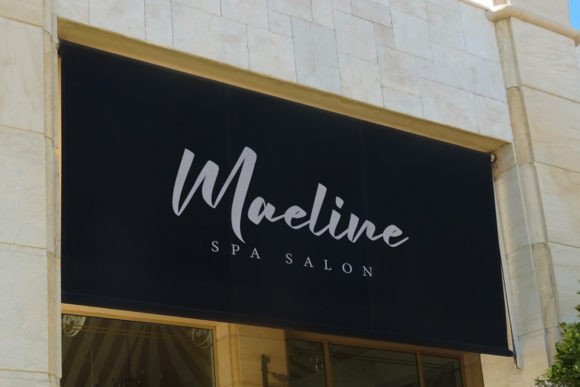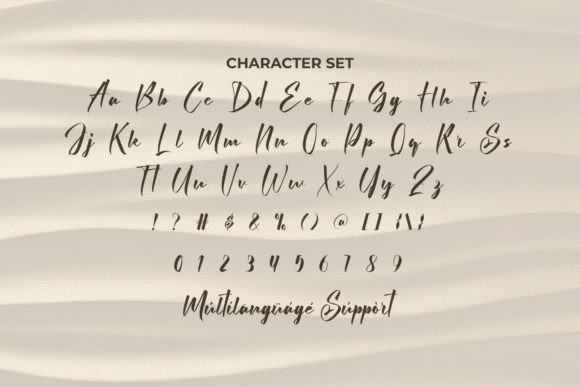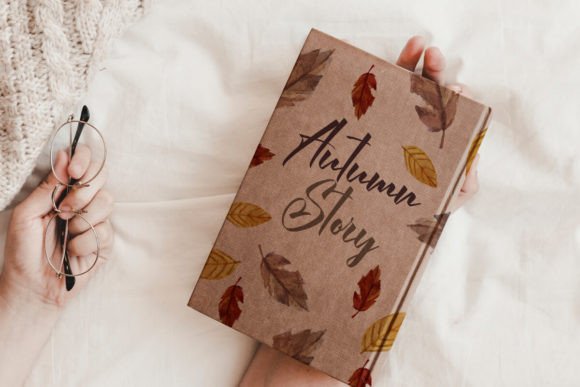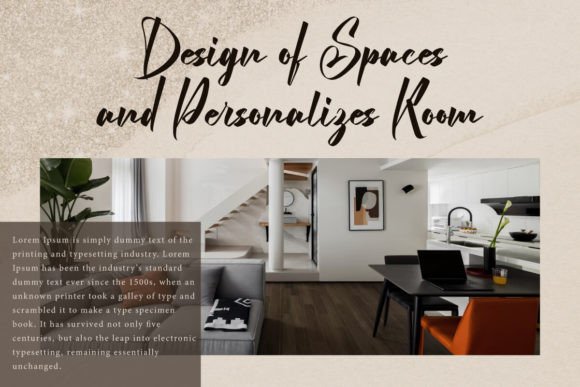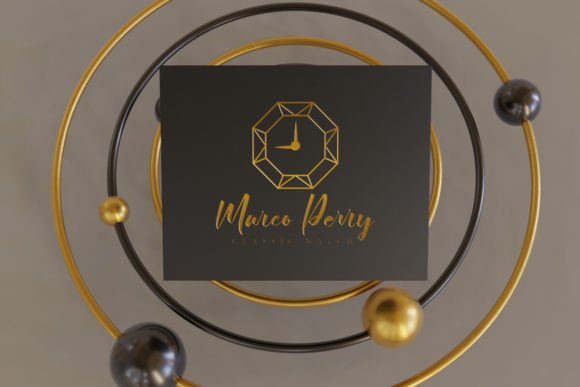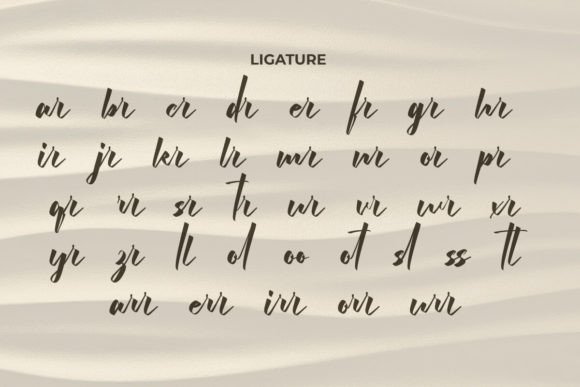
Introduction to Golden Sapphire Font
Have you ever been working on a creative project, pouring your heart and soul into it, and then – the perfect font strikes? For many designers, this moment is the key to unlocking the true potential of their work. The Golden Sapphire Font is one such gem that can elevate your designs to new heights.
This elegant calligraphic script font boasts a modern style, crafted with thick brushes that produce beautiful lines. Its high-quality design makes it an ideal resource for a wide range of creative projects, from brochure and business card designs to custom invitations and product packaging. With its transparent background, it’s a versatile tool that can be easily manipulated to suit your design needs.
Whether you’re a seasoned designer or just starting out, the Golden Sapphire Font is a valuable addition to your design arsenal. In this article, we’ll delve into the world of this stunning font, exploring its features, benefits, and uses – and discover why it’s a must-have for any designer looking to take their work to the next level.
Key Features of Golden Sapphire Font
- High-quality, elegant design suitable for creative projects, including wedding invitations, logos, and typography-based artwork.
- Features a unique blend of modern and classic elements, making it perfect for a wide range of design applications, from modern logos to vintage-inspired art.
- Includes a comprehensive character set, including uppercase and lowercase letters, numerals, and punctuation marks, making it suitable for various languages and design projects.
Honest Review: Golden Sapphire Font
I recently stumbled upon the Golden Sapphire Font, and I must say, it’s a beautiful addition to any design project. This high-quality font is perfect for those looking to add a touch of elegance to their creative project.
- What works well: ✨ The Golden Sapphire Font has a unique, sophisticated design that is perfect for luxury brands and high-end websites. The transparent background allows for seamless integration with any design.
- What works well: ✨ The font is also incredibly versatile and can be used for a variety of purposes, from headings to body text.
However, there are a few limitations to consider. ⚠️ The font is a free download, which can be a bit of a mixed bag. While it’s great that it’s free, the quality might not be as high as a paid font. Additionally, the font is only available in a limited range of weights and styles.
Overall, I think the Golden Sapphire Font is a solid choice for designers looking for a high-quality, free font. While it may not be perfect, it’s a great resource to have in your design arsenal.
The Golden Sapphire Font is a high-quality, free download that can elevate any creative project. This versatile font is perfect for designers looking for a unique and stylish design resource.
Using the Golden Sapphire Font
With its transparent background, the Golden Sapphire Font is perfect for creating eye-catching designs and graphics. Use it for headings, titles, and body text to add a touch of elegance to your project.
Tips for Getting the Most Out of the Golden Sapphire Font
Experiment with different font sizes, colors, and combinations to achieve the desired look for your creative project.
The Golden Sapphire Font is ideal for:
- Editorials and magazine layouts